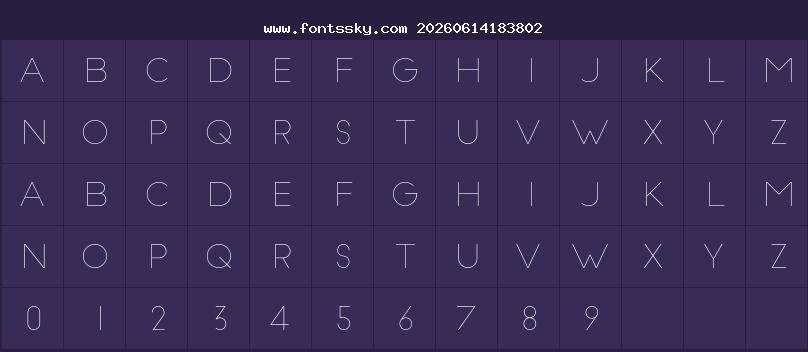
Slim Joe Preview
• Font Name: Slim Joe
• Designer: Ion Lucin
About Slim Joe.otf
Slim Joe.otf is a modern, elegant sans-serif font designed for ultimate readability and visual harmony. Perfect for branding, headlines, web design, and print materials.